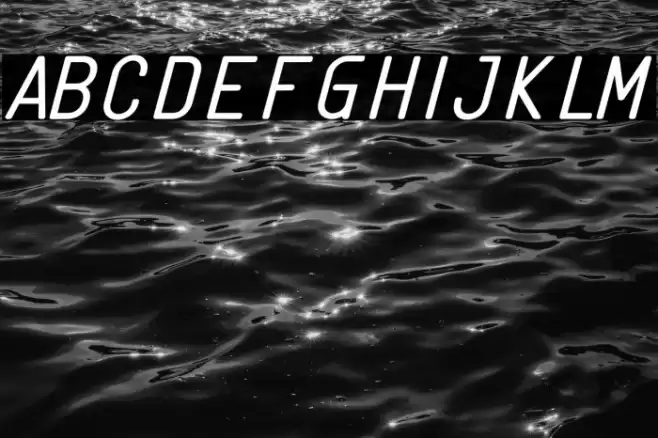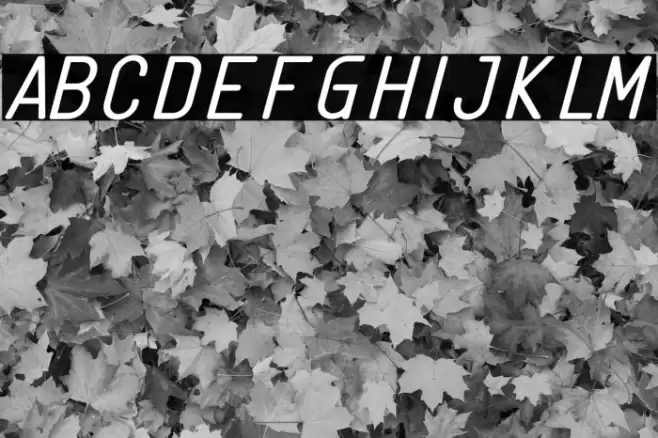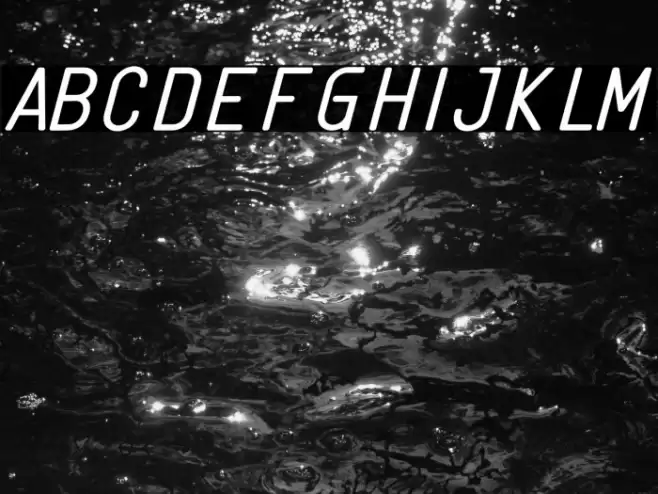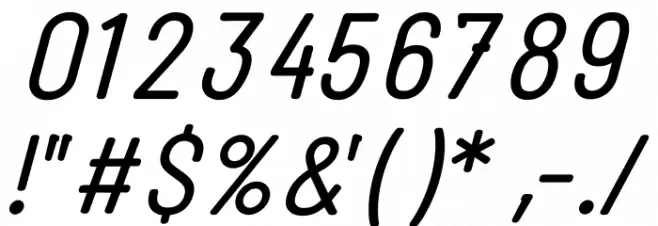
Linguineve Regular Italic Font
Linguineve Regular Italic Description
This font features a sleek and modern design with a slight italic slant, giving it a dynamic and forward-moving appearance. The characters are clean and streamlined, with a consistent stroke width that maintains readability. The uppercase and lowercase letters are well-proportioned, and the numerals are clear and distinct. Special characters are included, adding versatility to the font's use. The overall style is contemporary, making it suitable for a variety of digital and print applications.
A modern, italic font with clean lines and consistent stroke width from Uncategorized fonts.
- Proposed Projects: Ideal for branding, advertising, digital content, and modern editorial design.